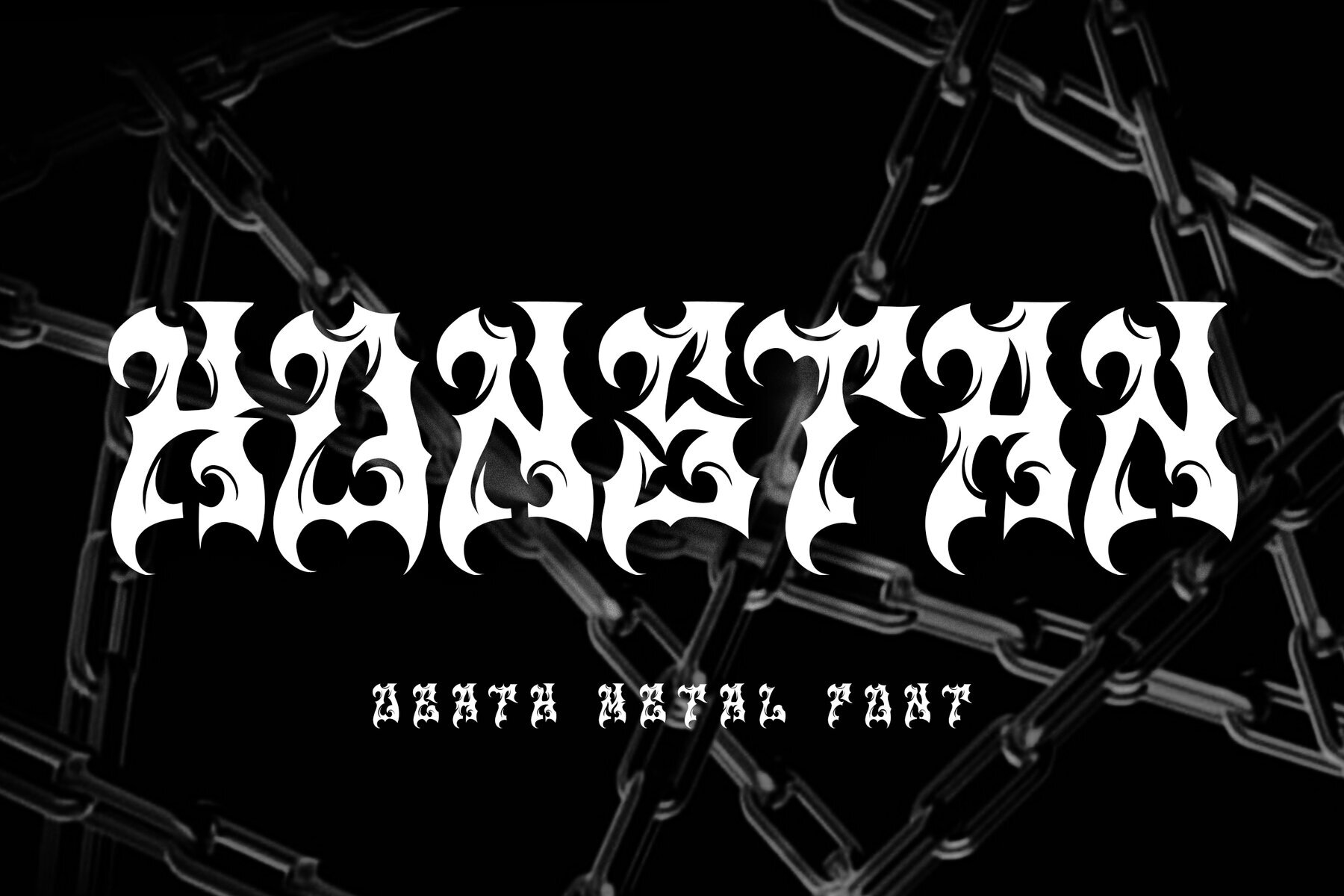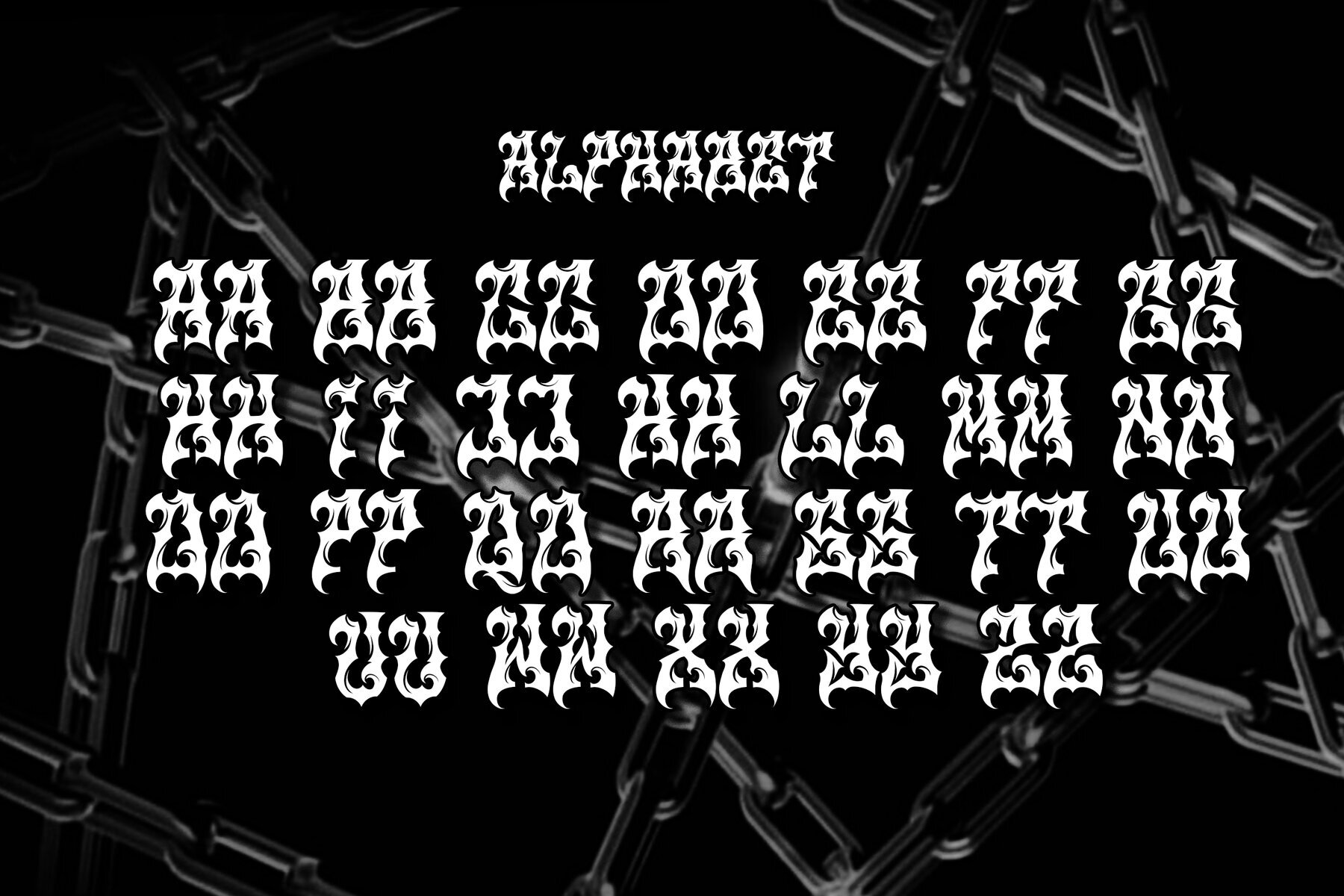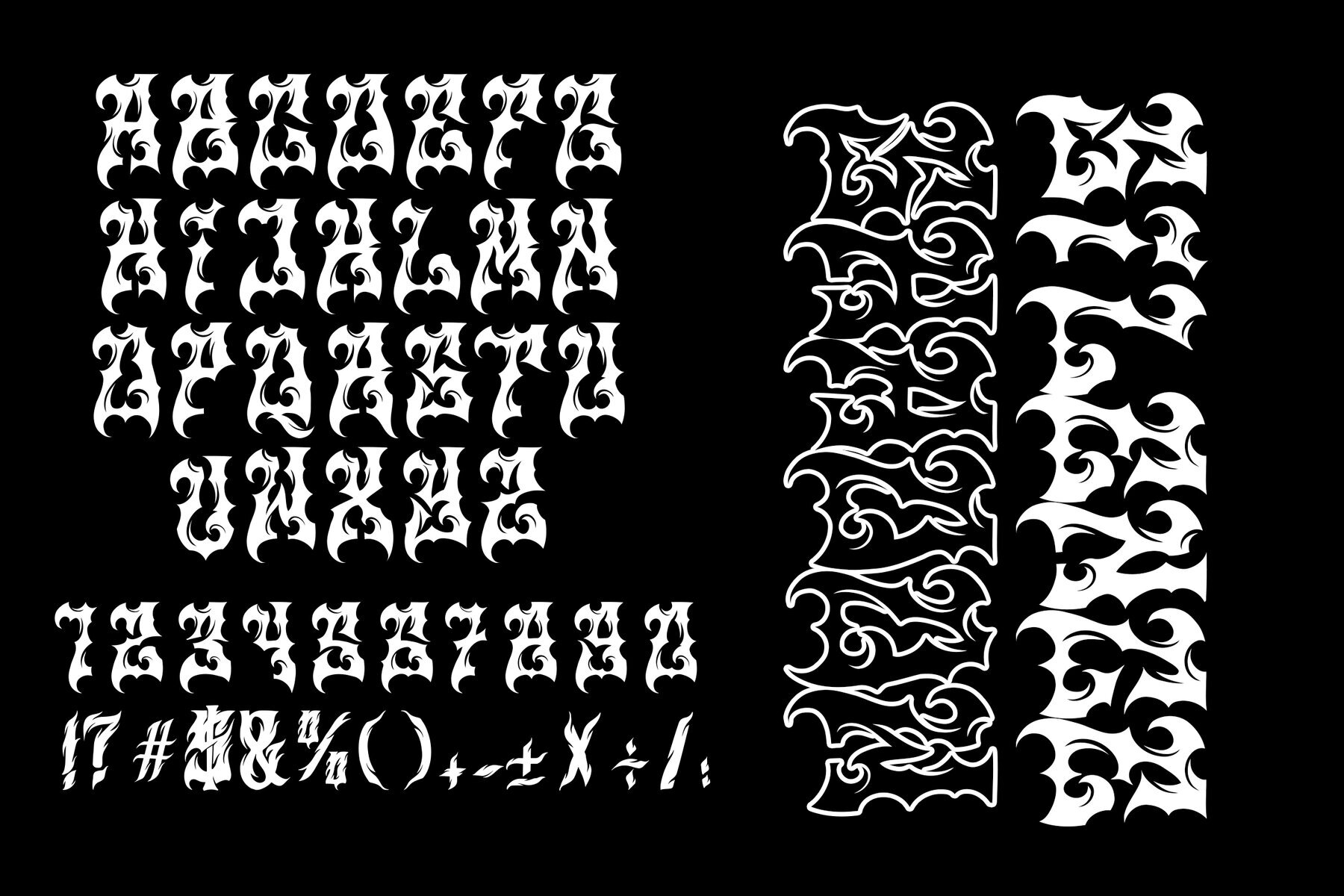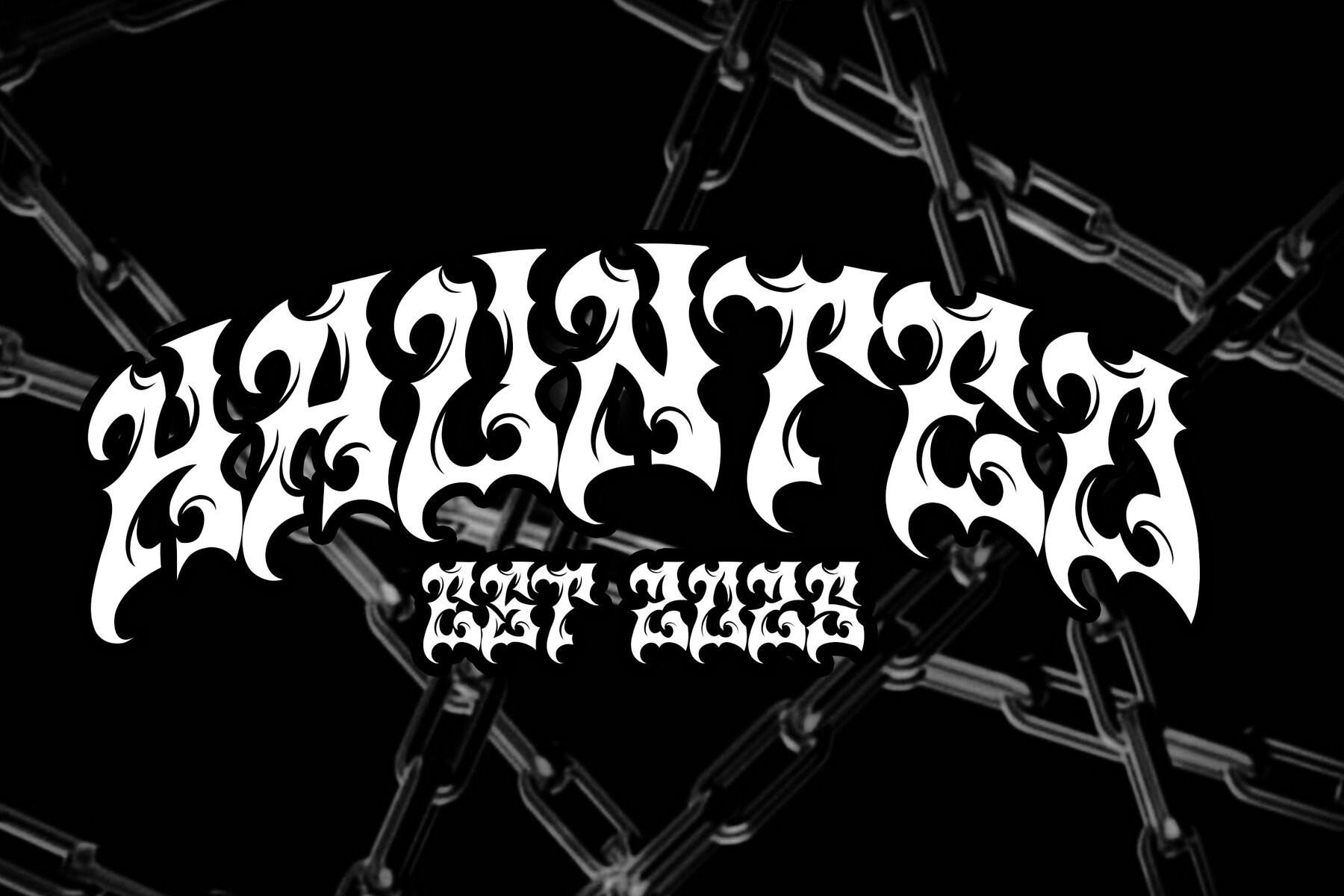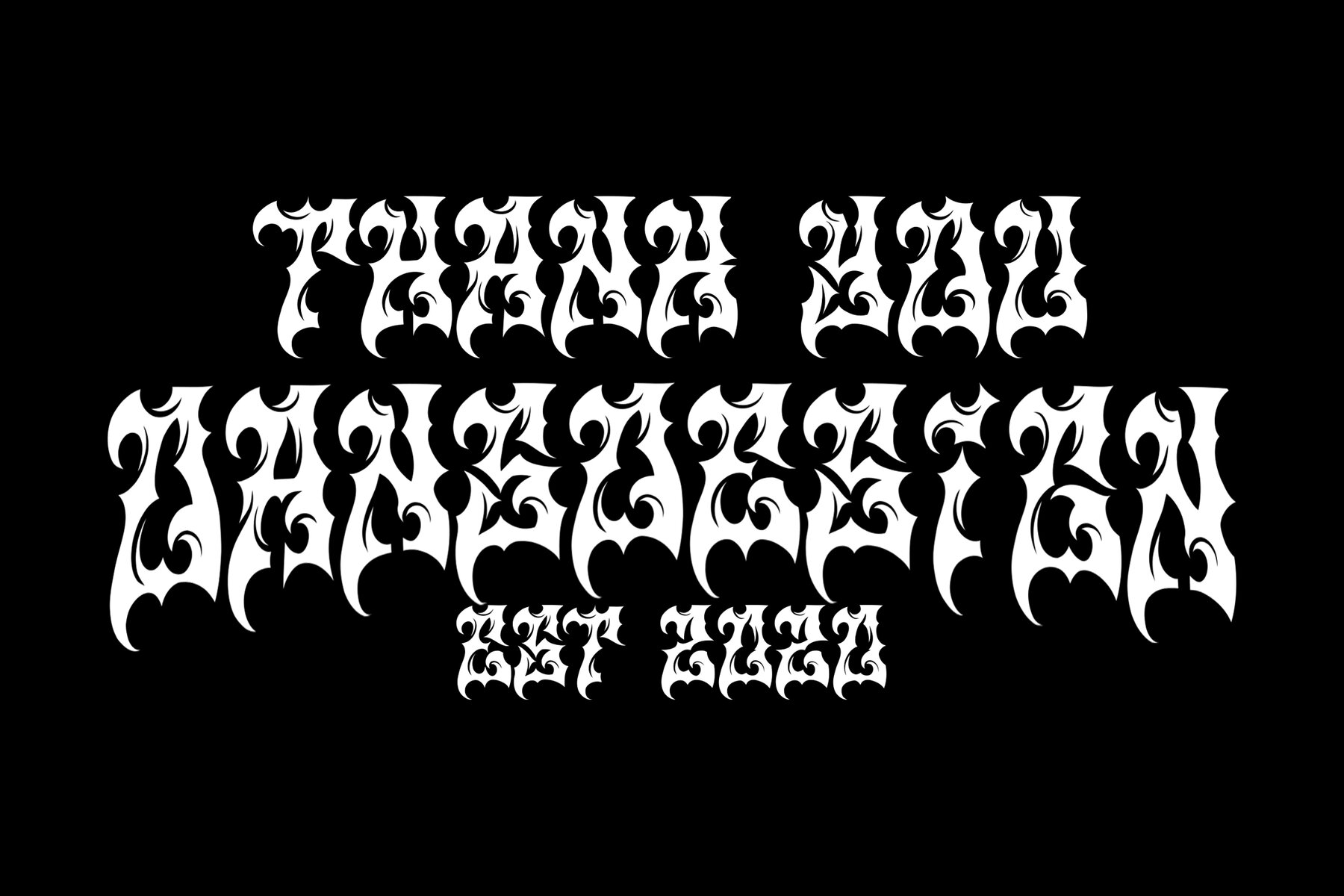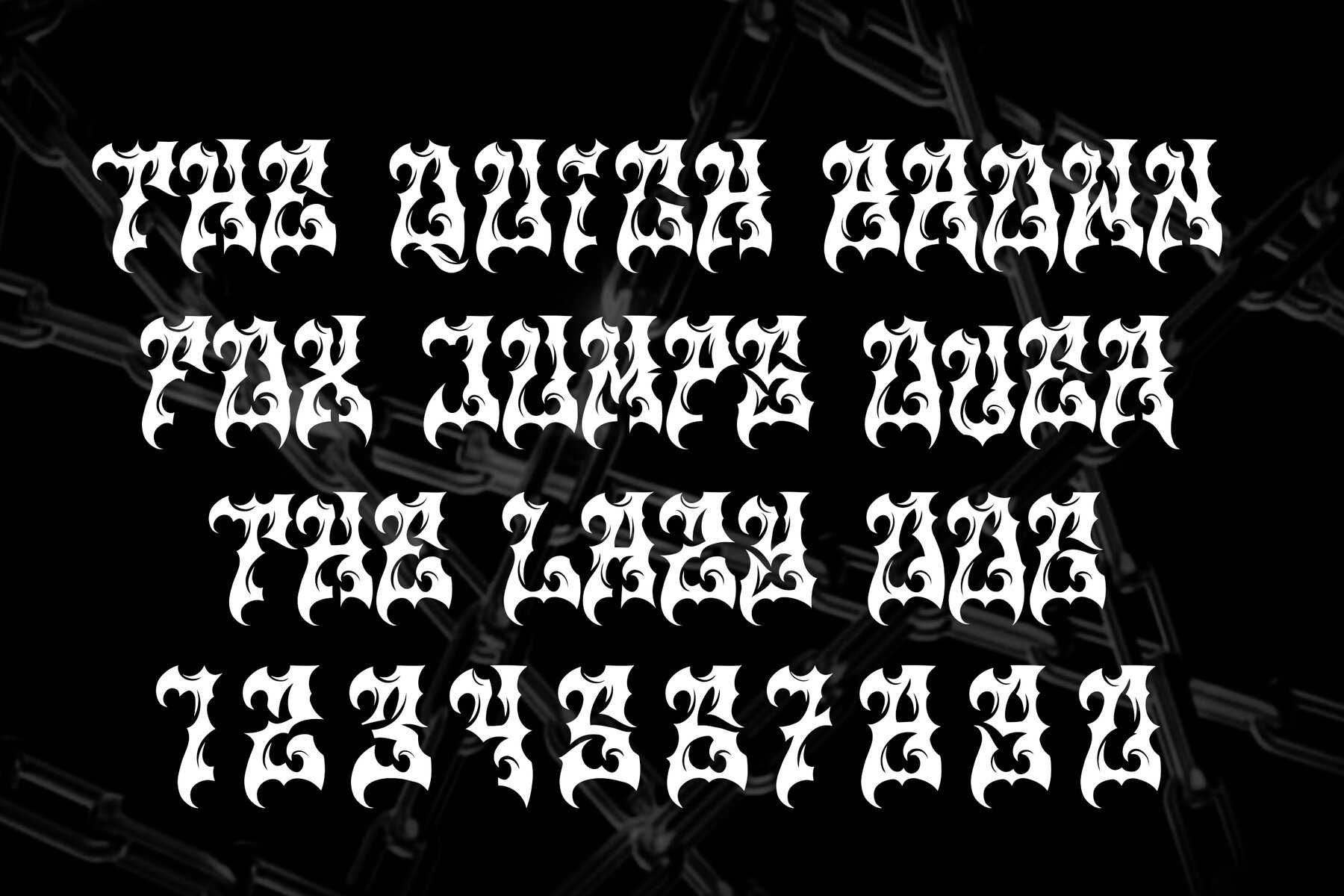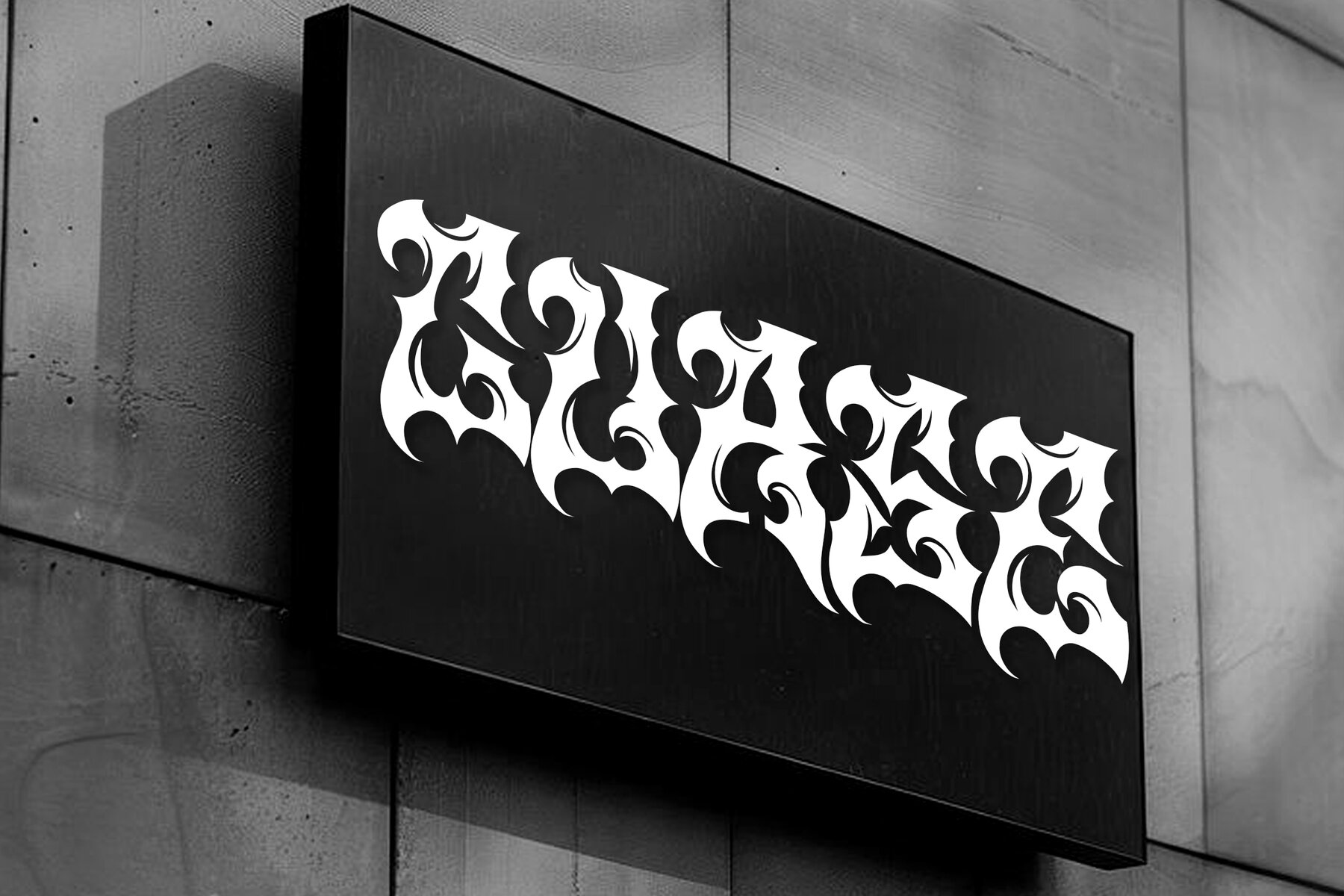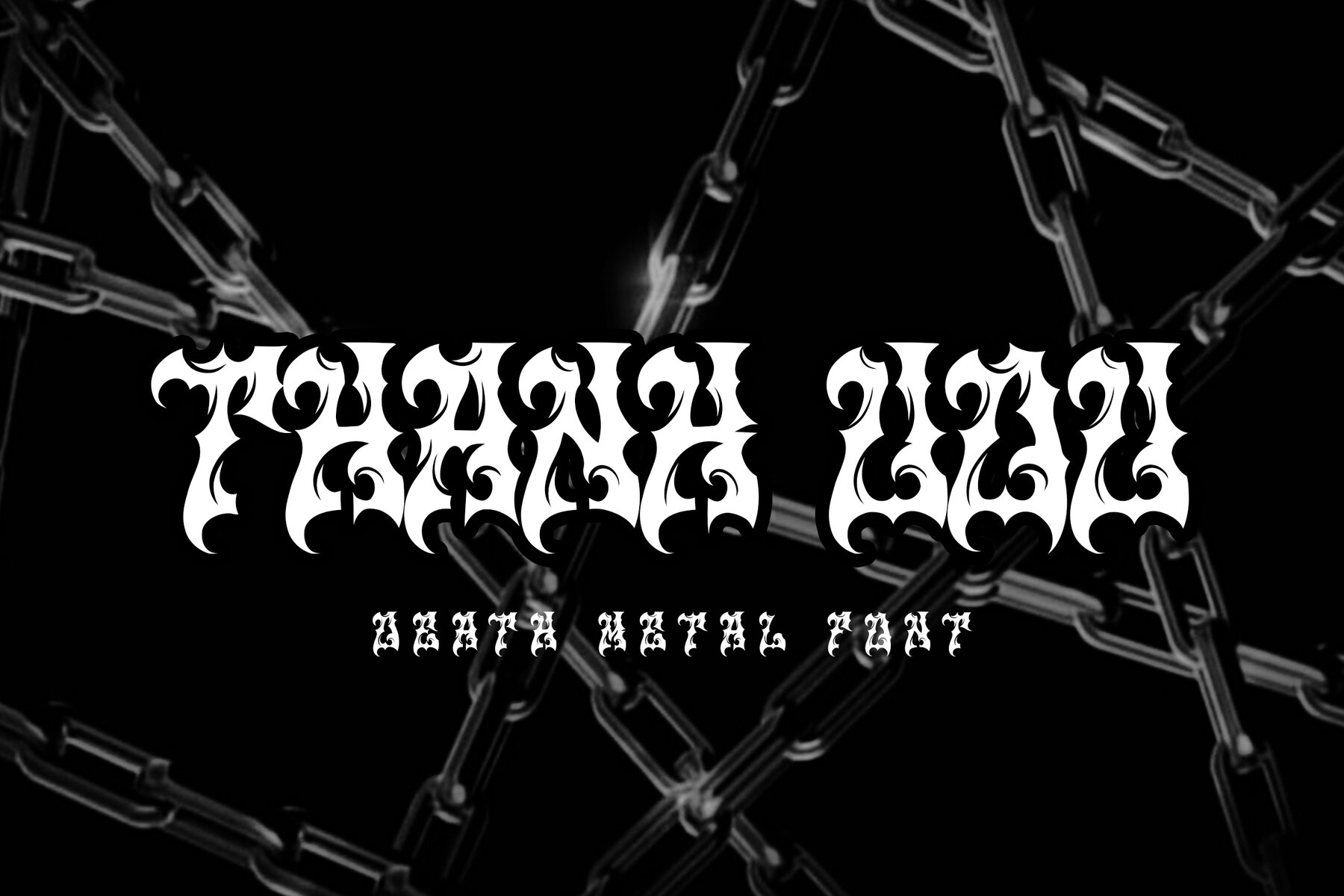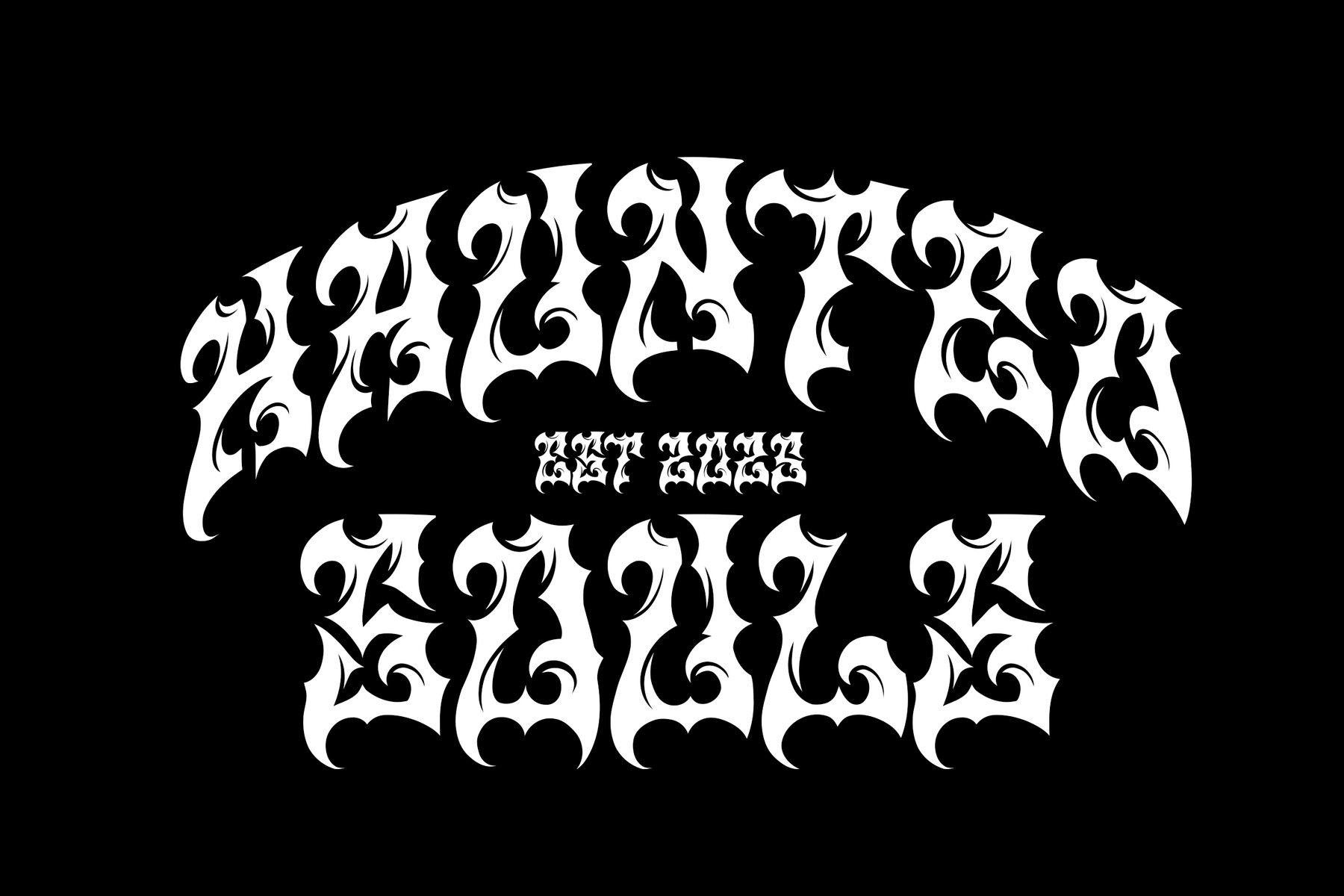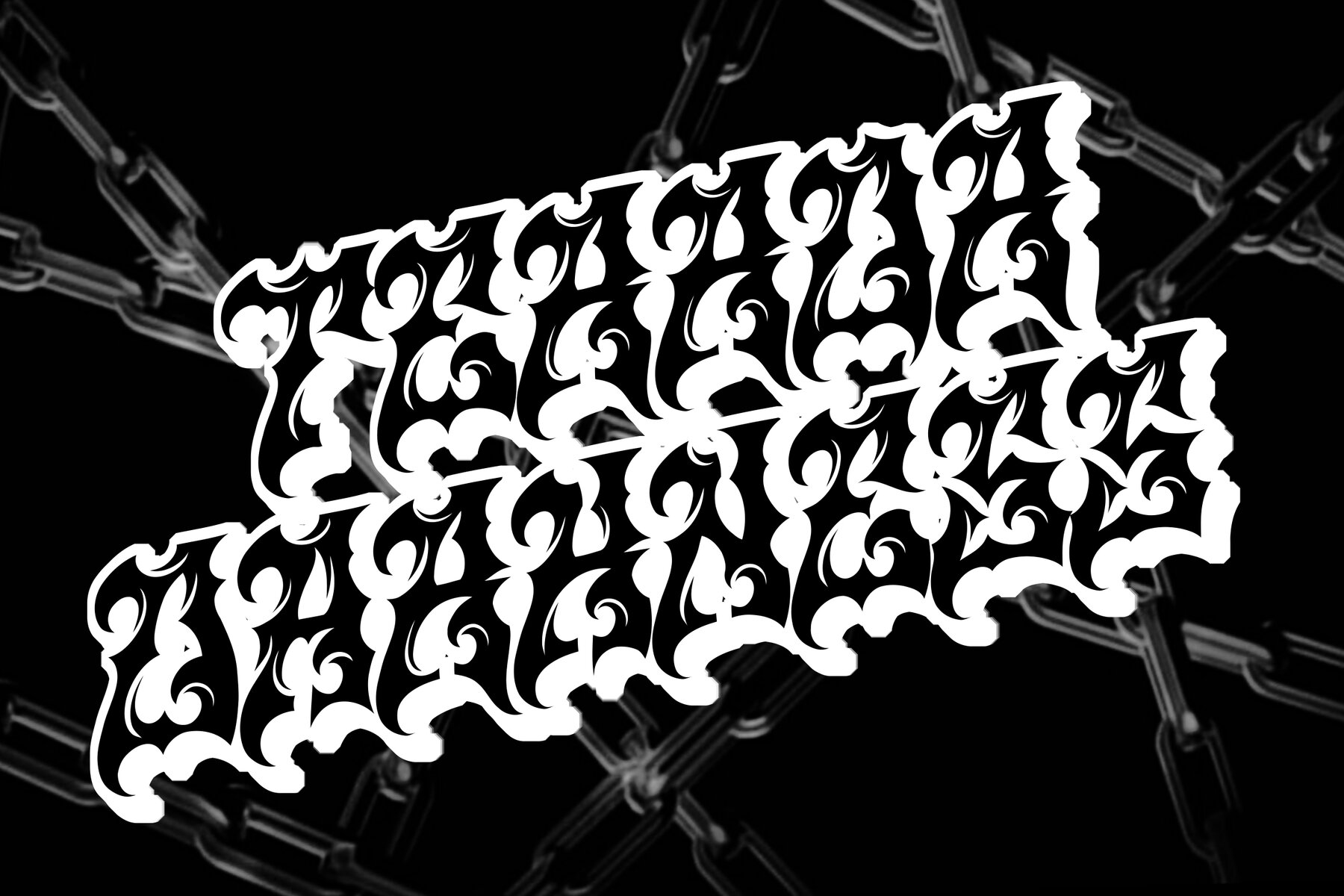
Konstan Doom Font
Unleash the power of Konstan Doom, a commanding blackletter typeface by Dandesign Studio that marries dark gothic allure with bold metal design. Its sharp strokes, striking curves, and vintage flair make it a top choice for metal band logos, music posters, and album covers. Whether you're designing tattoo art, gothic apparel, or streetwear branding, Konstan Doom brings your project to life. Perfect for magazine titles and retro horror artwork, this font is available in Regular and Slant styles to suit both modern and vintage aesthetics. Choose Konstan Doom when you need a gothic blackletter font that embodies intensity, rebellion, and powerful visual impact.Konstan Doom: Gothic Metal Font